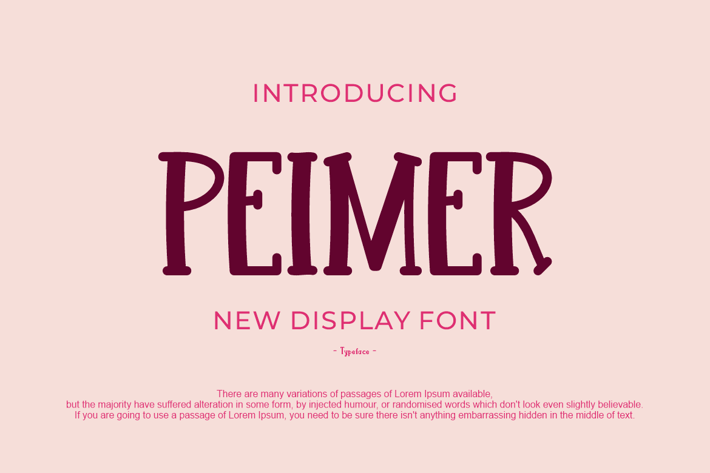
PEIMER Font
Introducing our new product PEIMER Font - Modern Font
PEIMER Font - Modern Font is a bold and authentic display font. The font is suitable for any branding project like logo, t-shirt printing, esport, and many more. outstanding in a wide range of contexts.